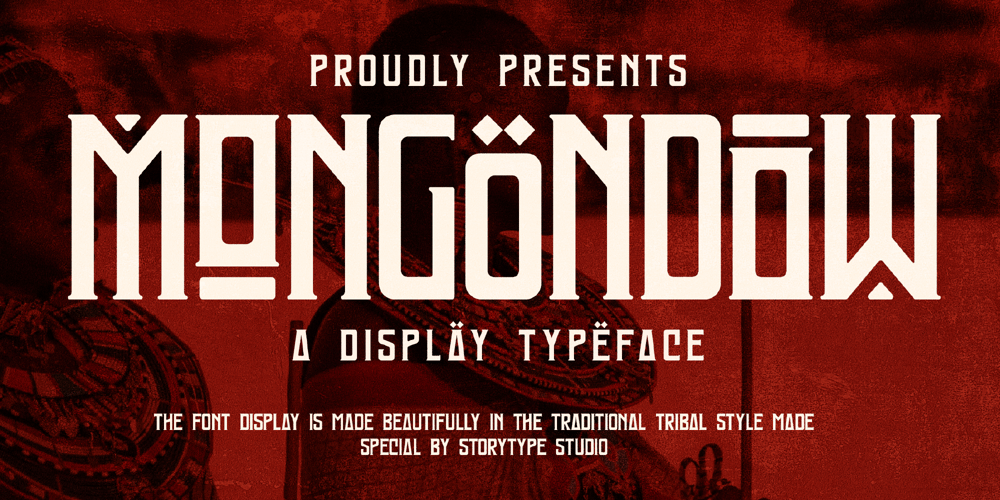
Mongondow
Mongondow font
Mongondow Font Family was designed by Heru Utama Putra and published by Letterena Studios. Mongondow contains 2 styles and family package options. Mongondow is a unique, modern, and classic display font perfect for elegant and luxury logos, book or movie title designs, fashion brands, magazines, clothes, lettering, quotes, and so much more. . Add it to your fonts library, and it will become your favorite in no time at all!This font is PUA encoded, which means you can access all of the glyphs and swashes with ease!